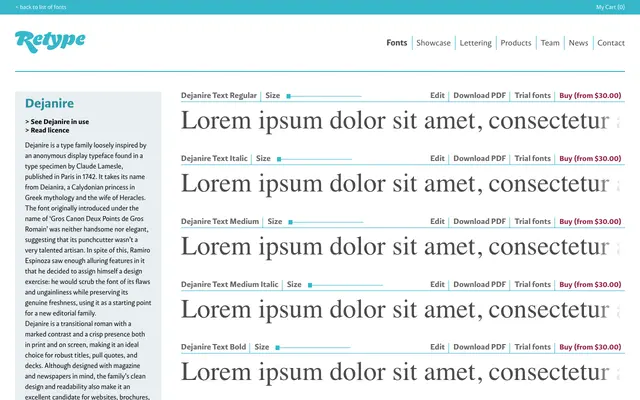
Dejanire
A serif family from Retype structured across three optical sizes, covering text, headline and display roles in a range from Light to Black.
Three optical subfamilies, Text, Headline and Jewel, each tuned for their respective setting conditions, with Dejanire Text and Headline running from Light through to Black with matching italics at every weight. The Jewel cut sits as a standalone display variant for the largest, most refined applications. The overall range makes it well suited to editorial projects where consistent typography is needed across body copy, headlines and pull-quotes.
Dejanire presents as a humanist serif with optical size variants spanning text, headline and display (Jewel) roles, a structure typical of contemporary typeface families designed for editorial publishing across different scales.